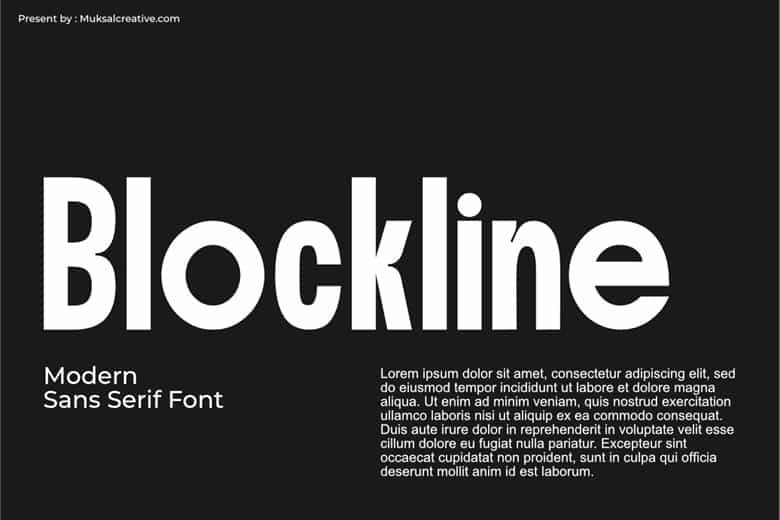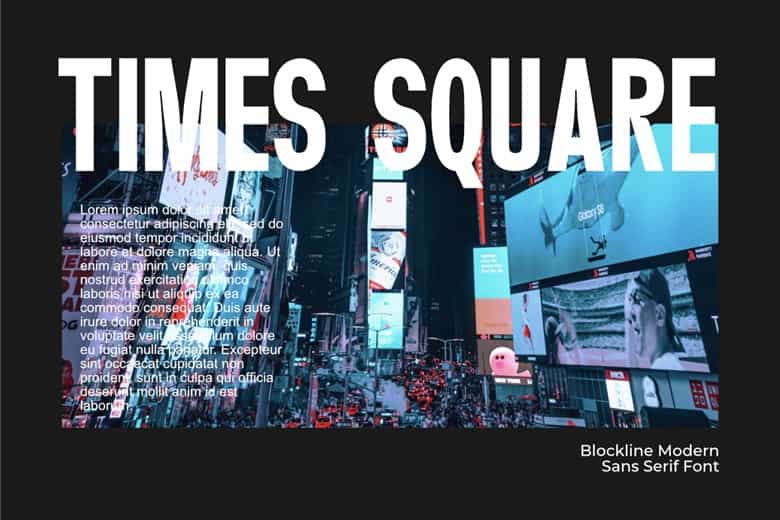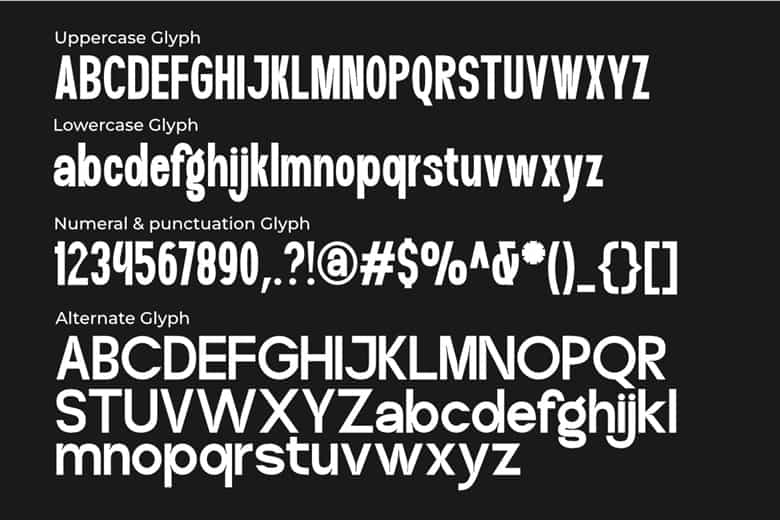
Blockline is an elegant and innovative font intended for use in headlines. Due to its simplicity, a clear hierarchy, and modern look, Blockline is ideal for headlines, logos, posters, and any other project requiring one’s gaze. Its shapes and design are youthful, but not overly so and have that certain classic feeling that makes them perfect for both digital and print.